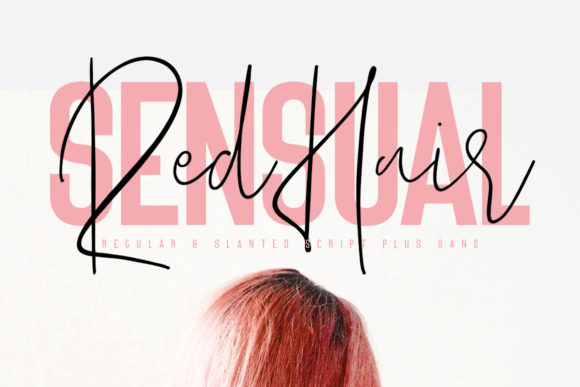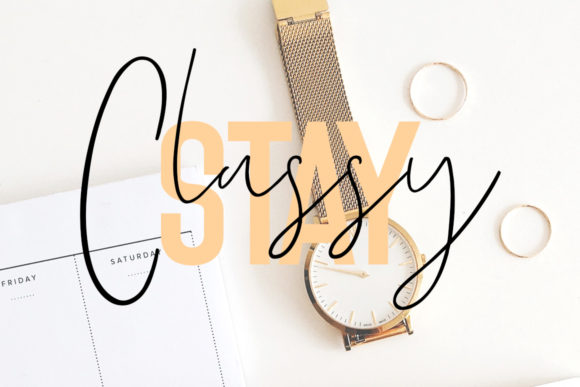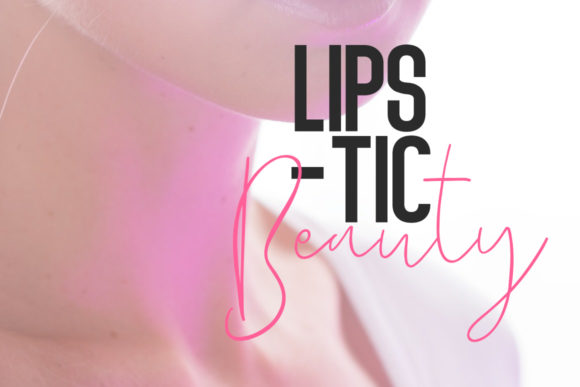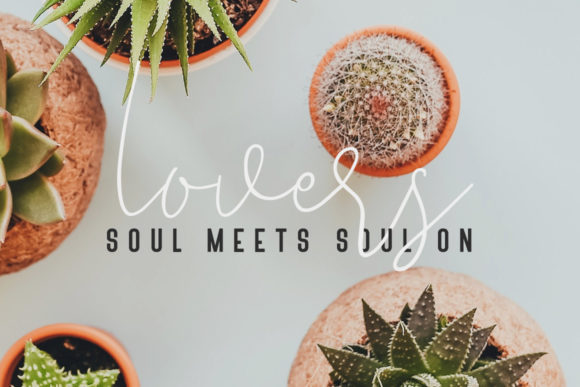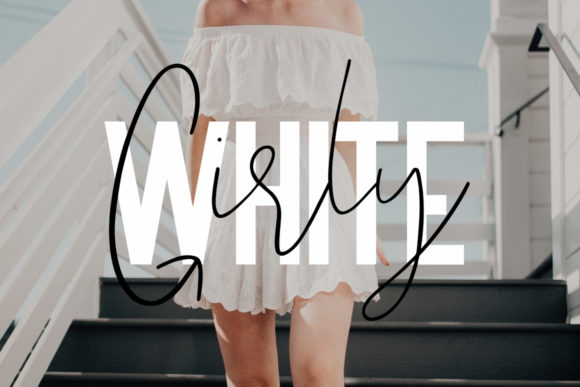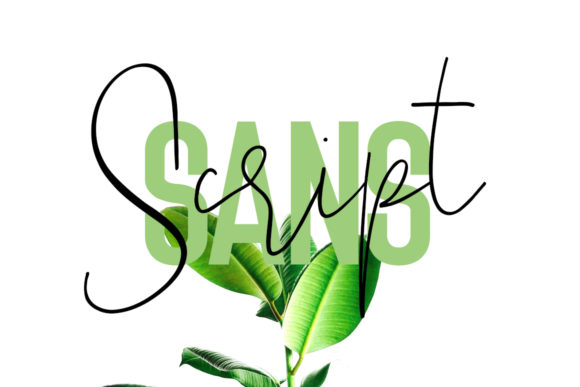
Red Hair Sensual Duo Font
About Red Hair Sensual Duo Font
Give your designs an authentic handcrafted feel with Red Hair Sensual Duo script and serif fonts! These fonts can be used together or on their own and are perfectly suited for signatures, stationery, logo, typography quotes, magazine or book cover, website header, clothing, branding, packaging design and more.